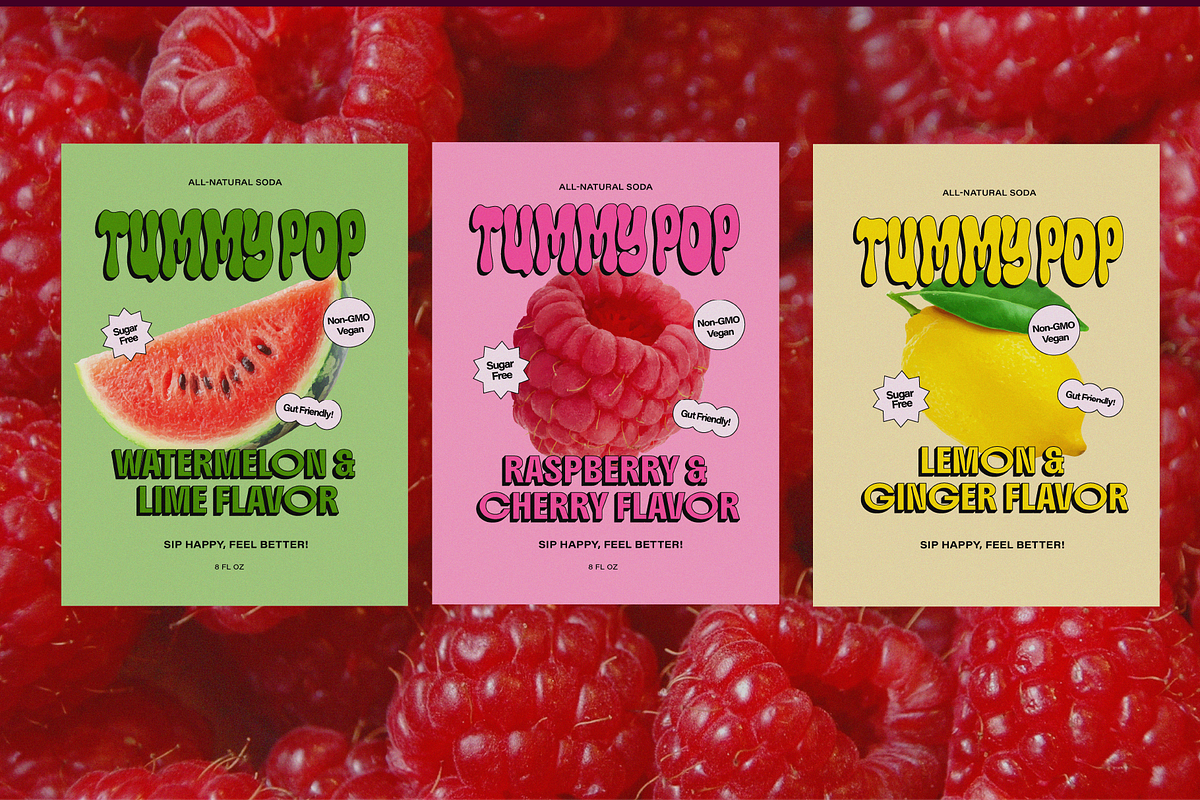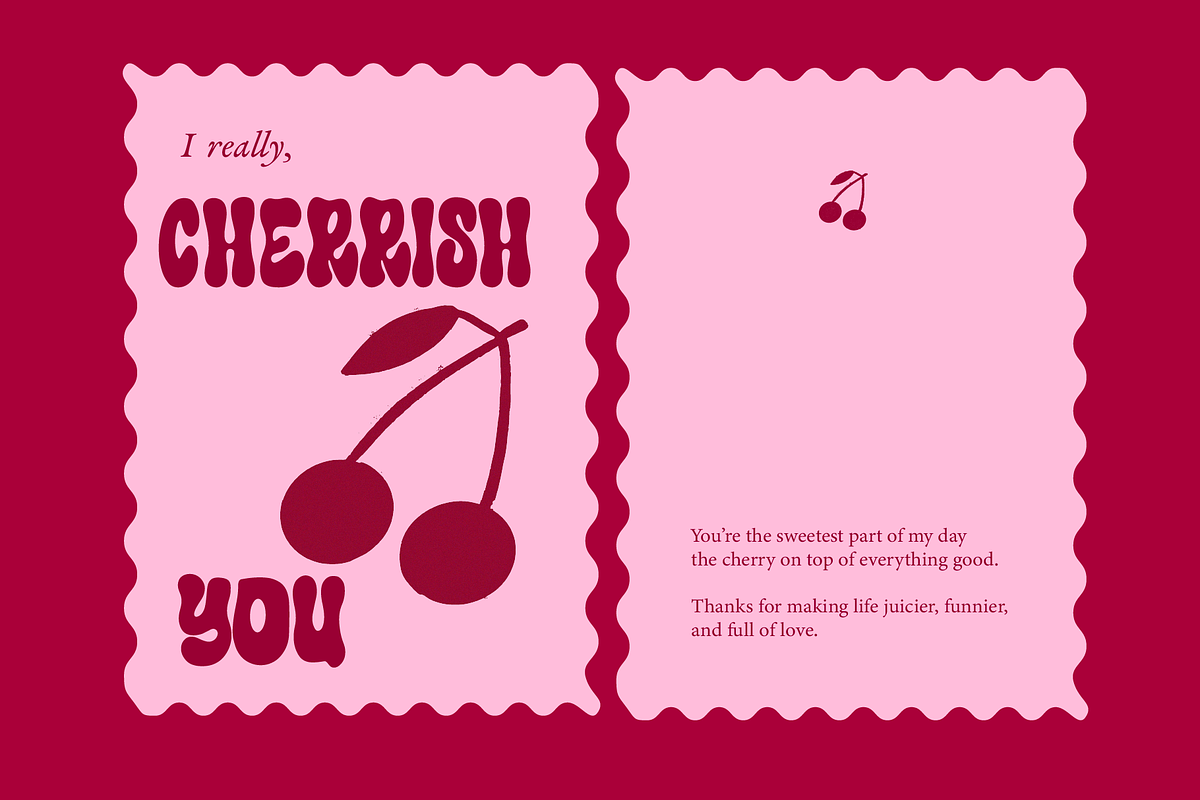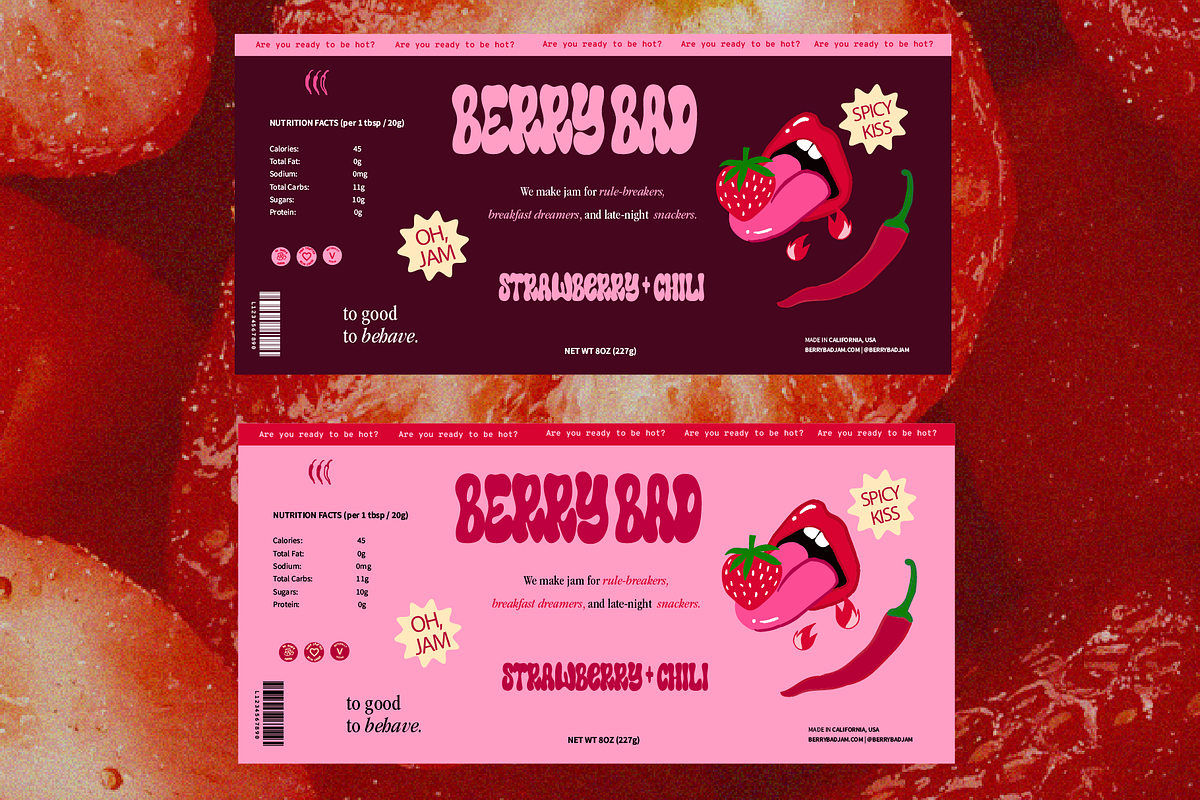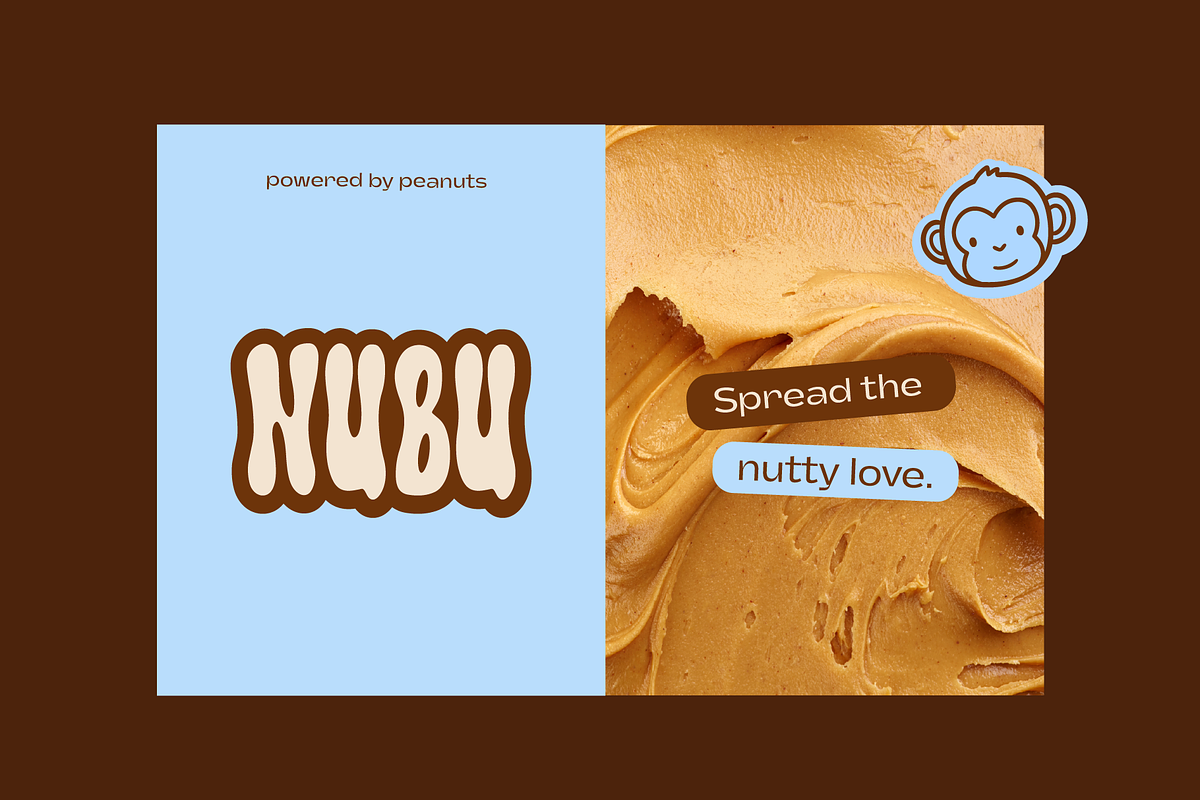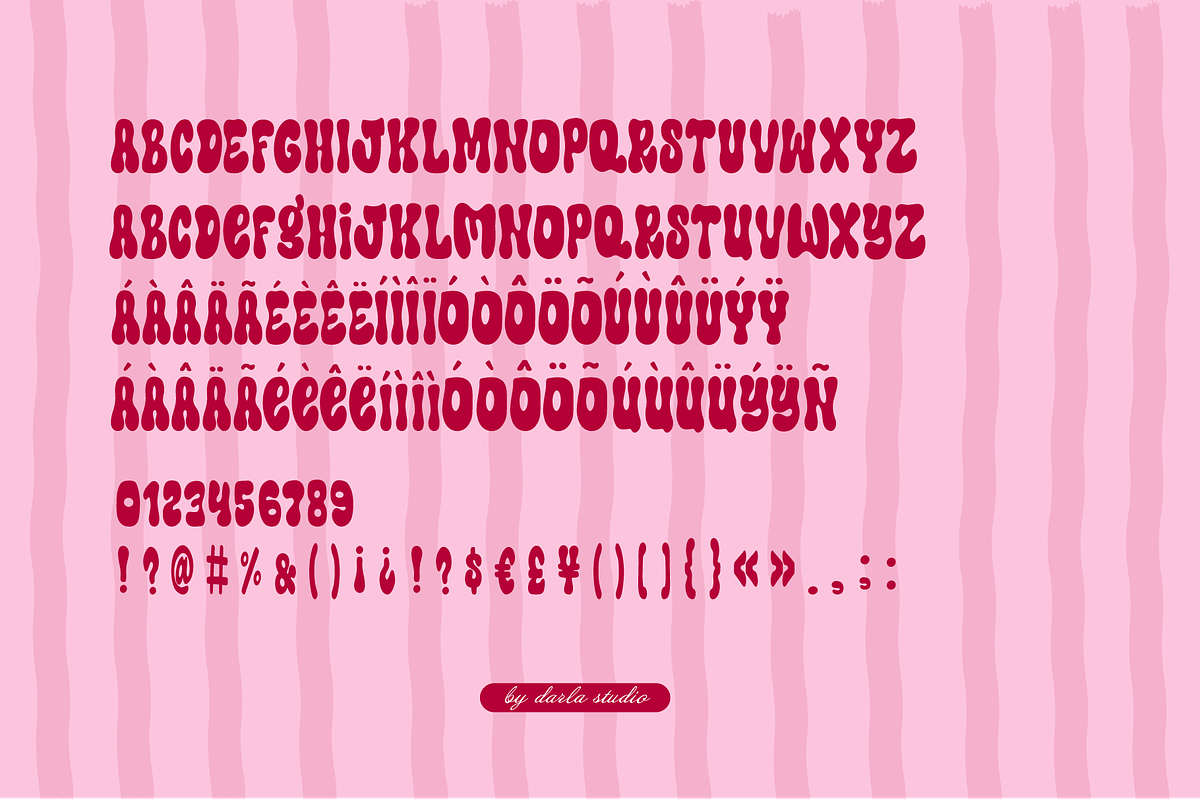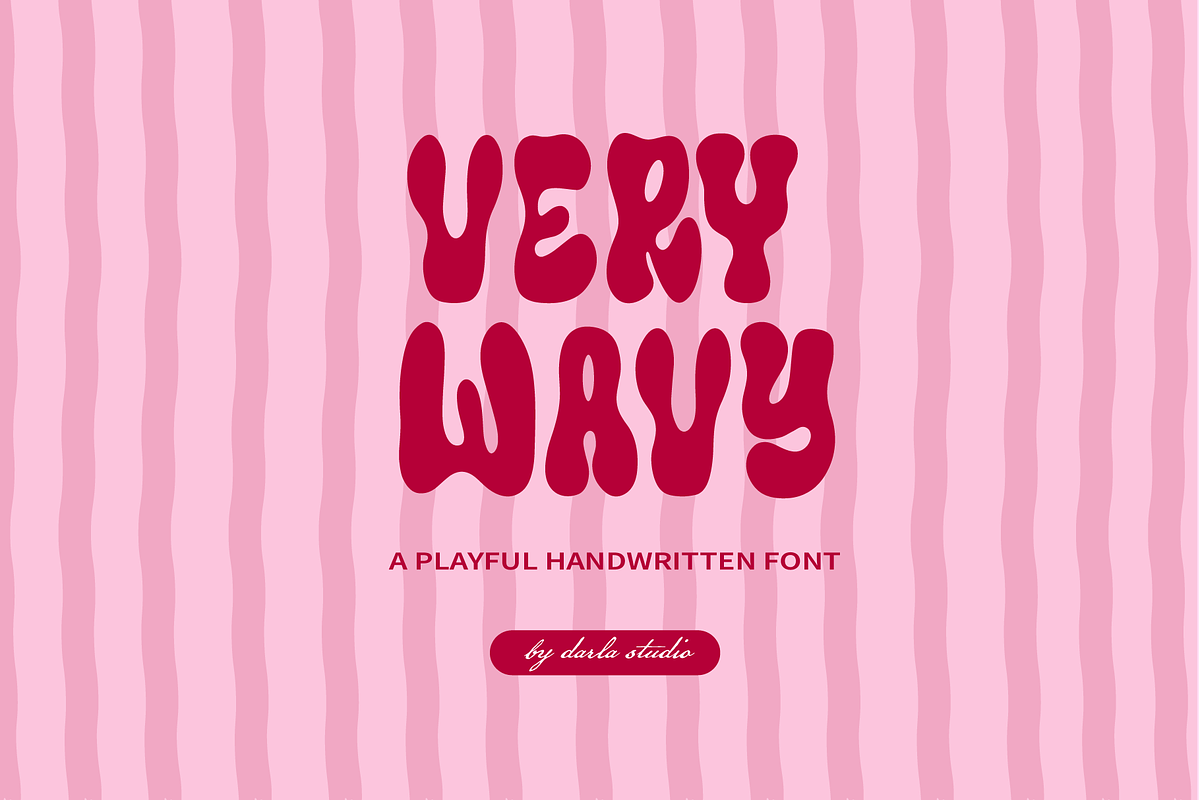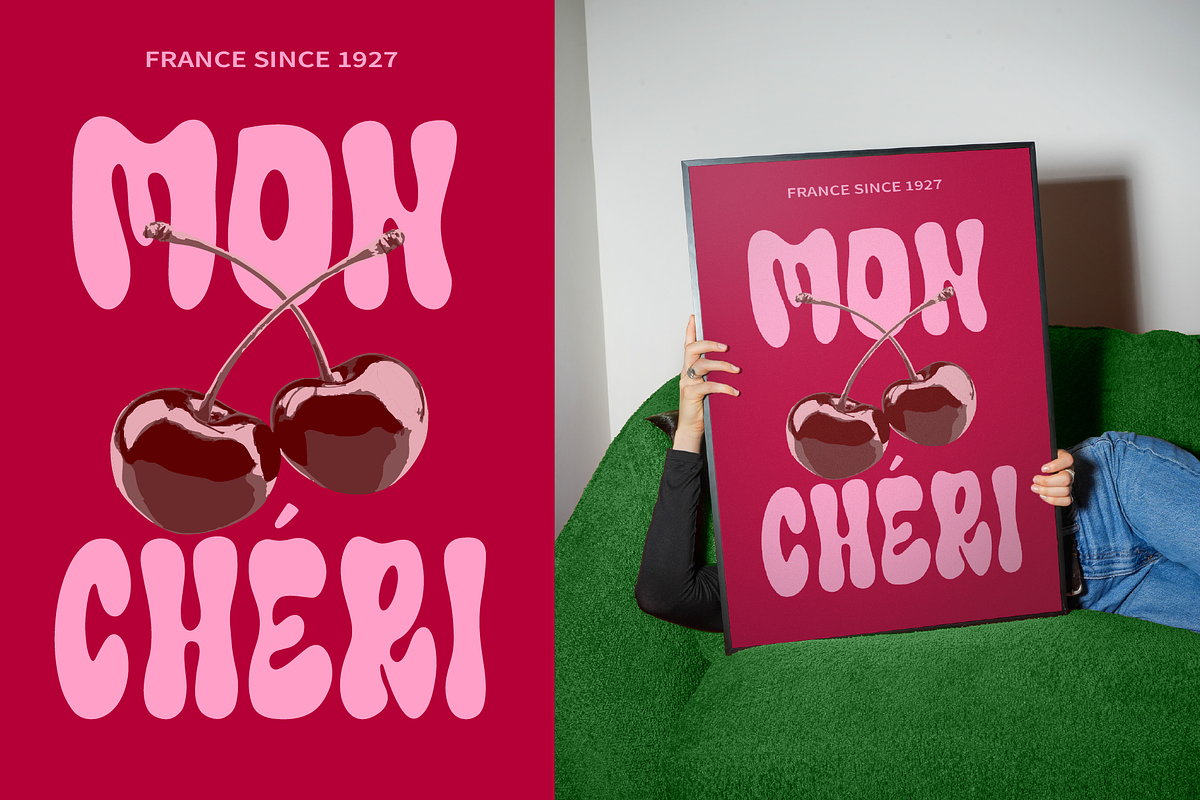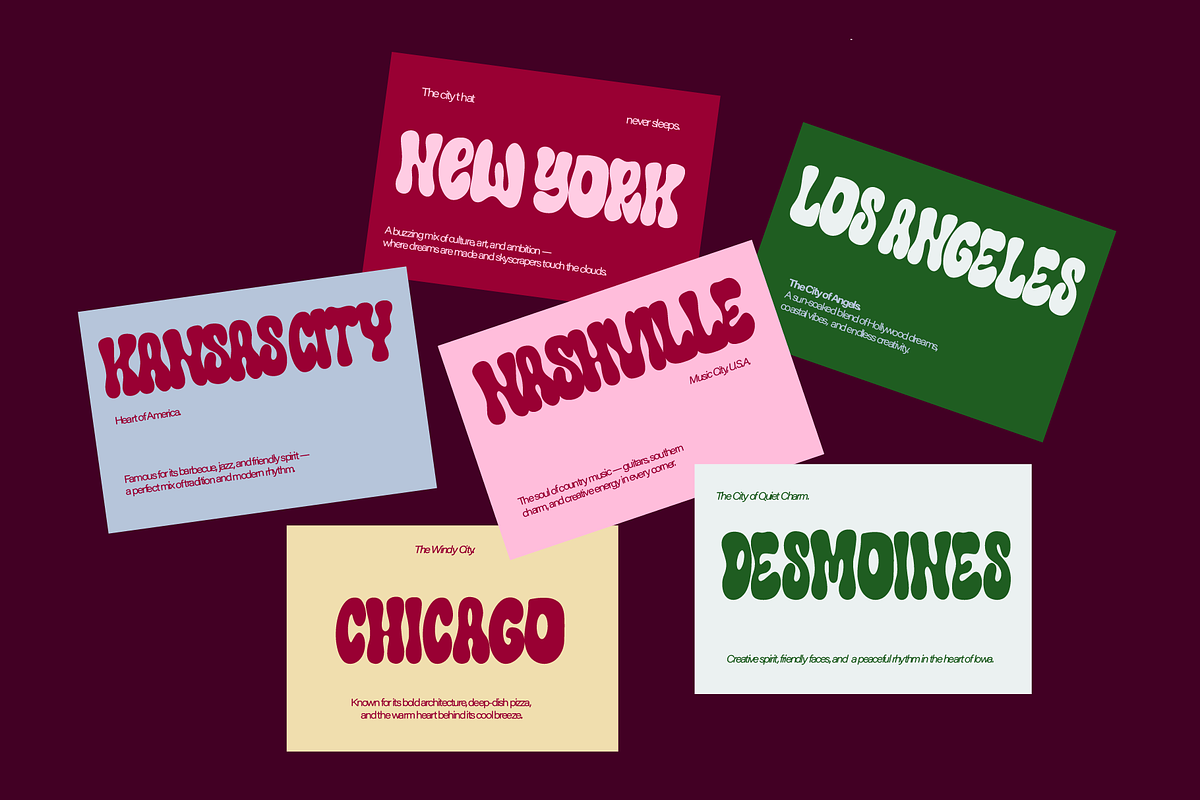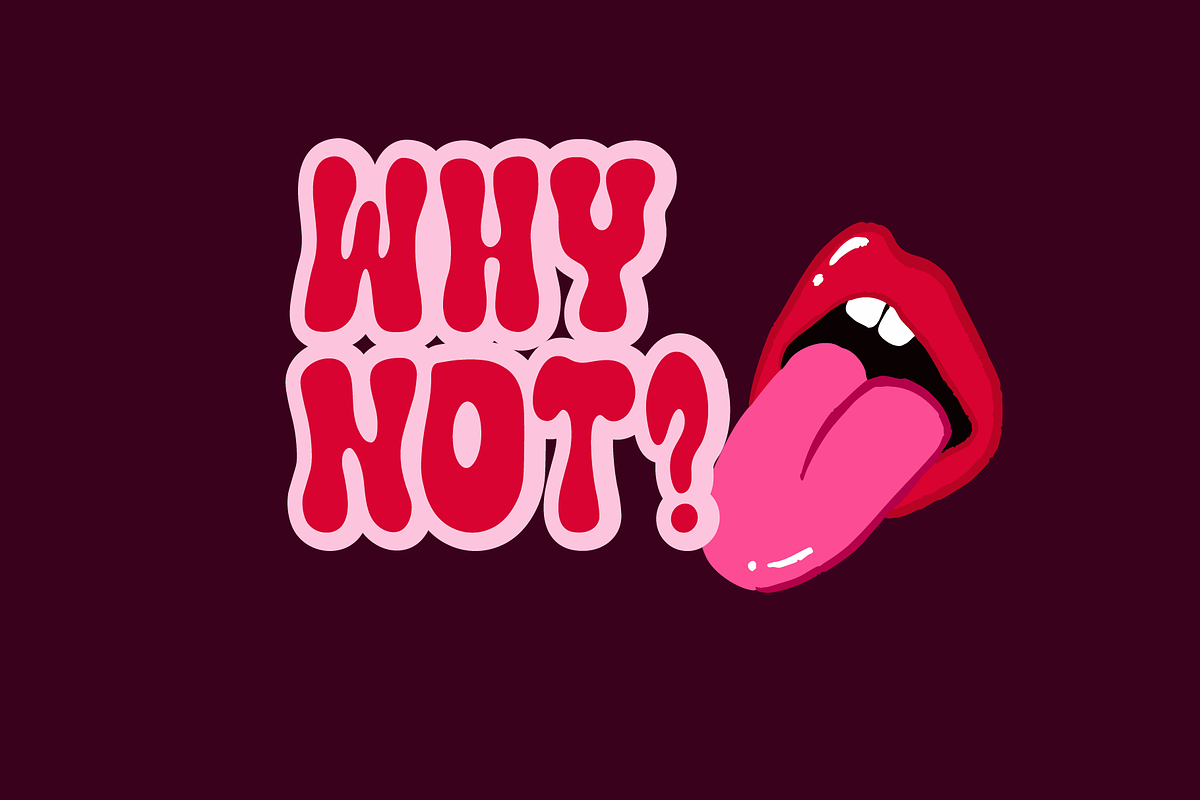
Very Wavy Playful Chunky Font
Add a fun, bold, and retro touch to your designs with Very Wavy! 🍒✨ Very Wavy is a chunky, playful, all-caps display font that perfectly captures the retro aesthetic. Its wavy curves and bubble-letter vibe make it ideal for projects that need to stand out with a cheerful, sweet, and carefree personality. Whether you're designing packaging for a new artisanal ice cream, creating eye-catching posters for a local market, or giving a fun twist to your brand identity, Very Wavy is the perfect tool to bring your typography to life.
- Product packaging
- Logos and Branding
- Retro posters and printed flyers
- Social Media graphics and posts
- Apparel designs
- Inspirational quotes
- Creative projects